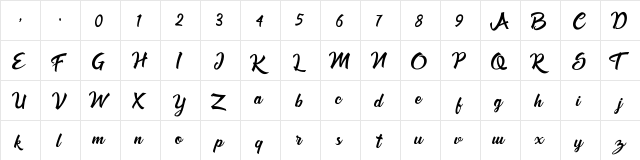
Amaliani Bold
Design Context for Amaliani Typeface
Amaliani is a composed and adaptable typeface that performs quietly and consistently across a wide range of design contexts. Its bold stroke weight gives it real presence on the page.